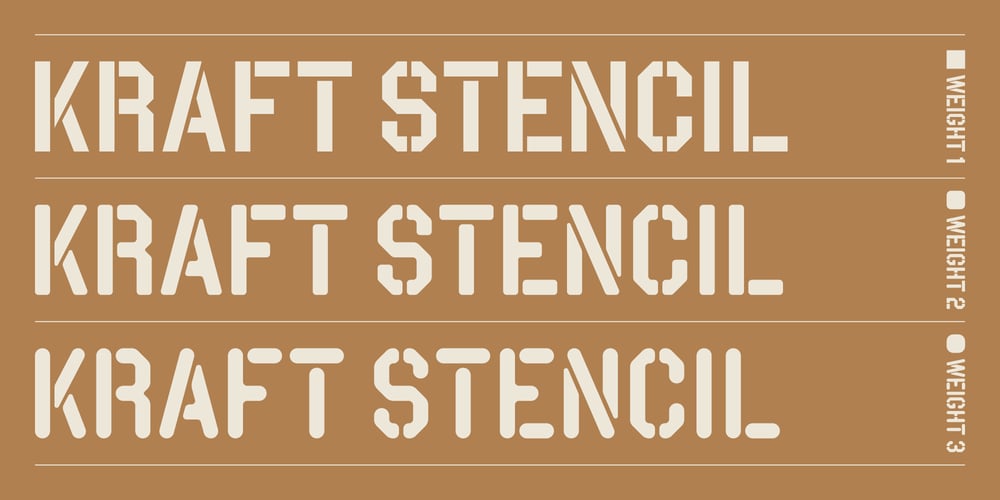
Kraft Stencil
Kraft Stencil font
Kraft Stencil Font Family was designed by Dan Choi and published by Dan Choi. Kraft Stencil contains 3 styles and family package options. Kraft Stencil is a bold, display typeface that takes a new approach to vintage crate stencils. Utilizing octagon shapes as the backbone, the aim was to develop modernized stencil fonts. The font family comes in three weights, and each style consists of the different edge finishes of the character sets.